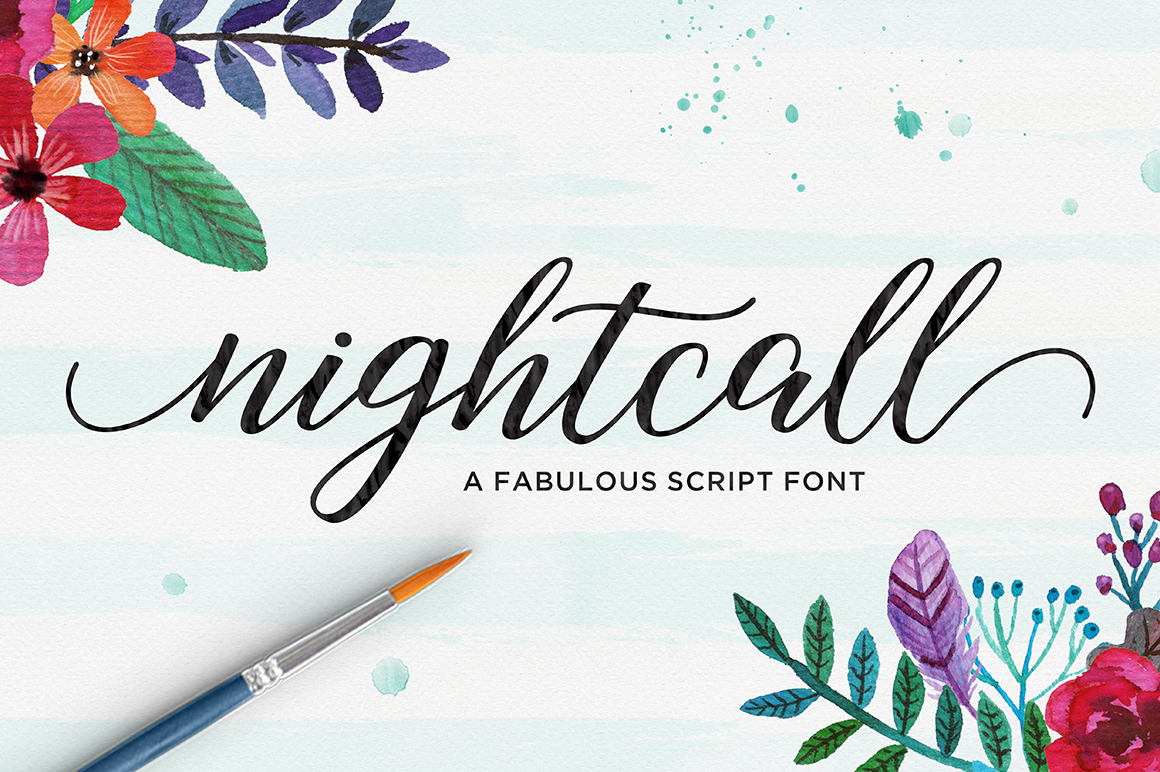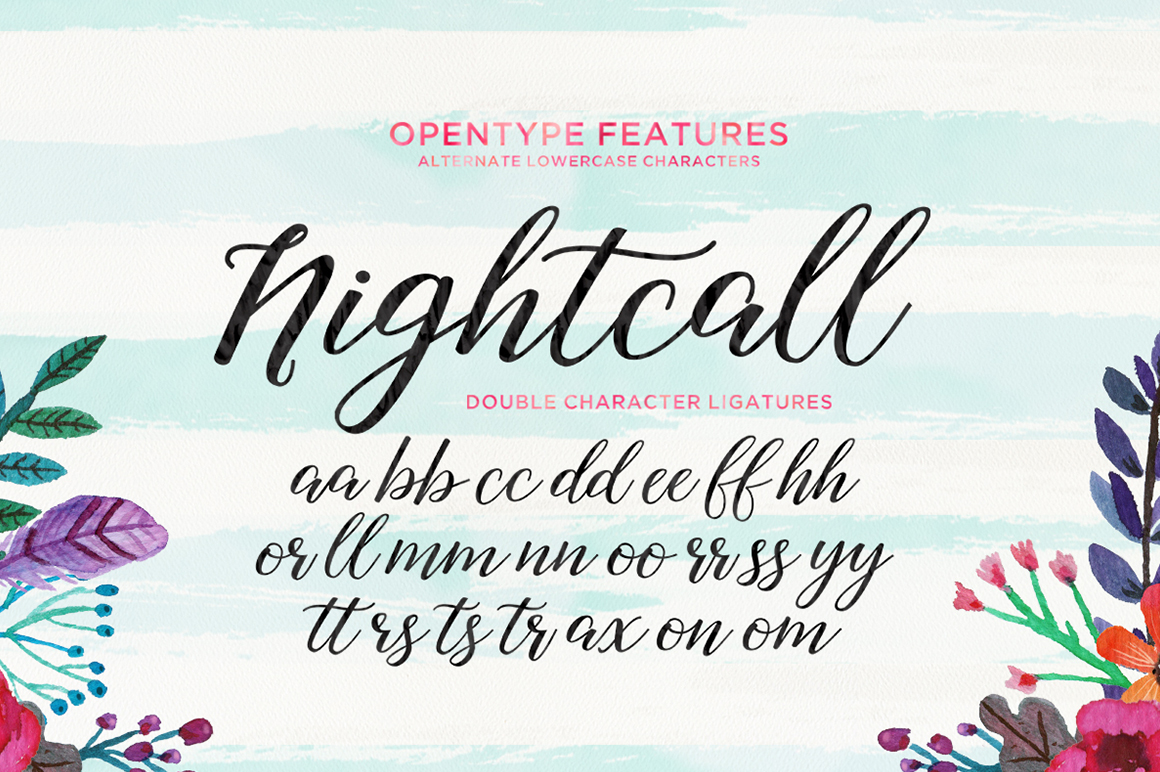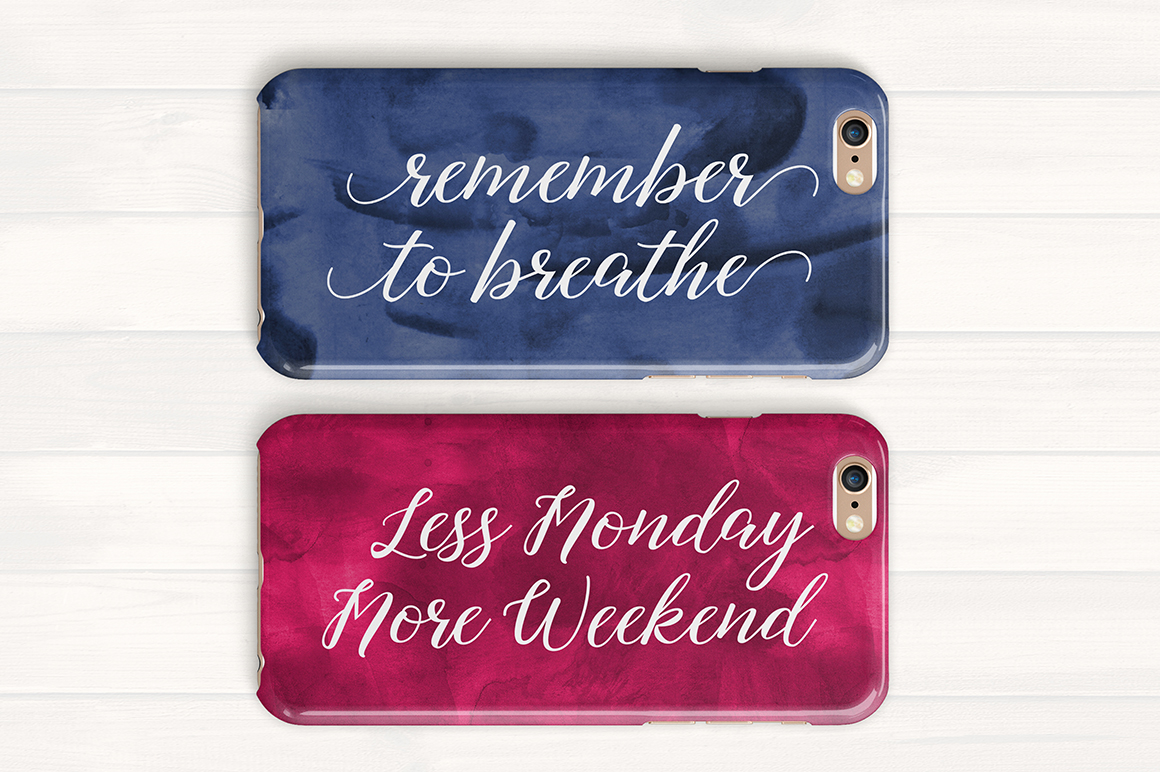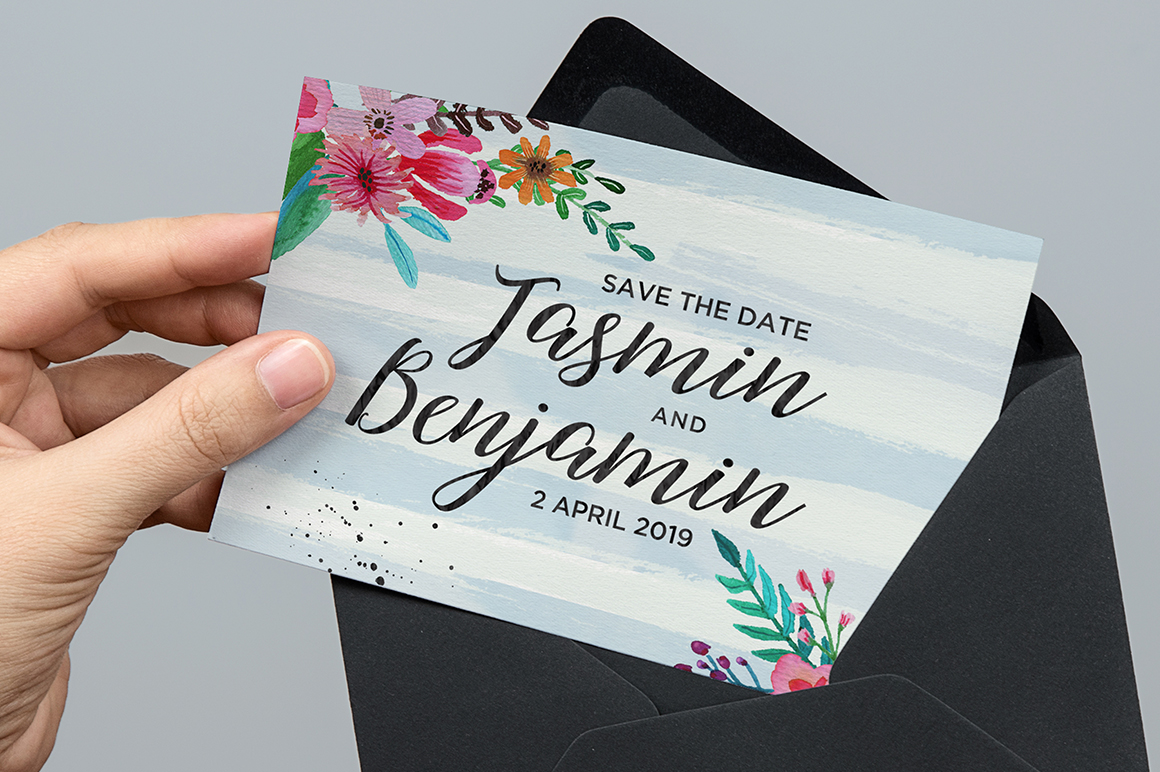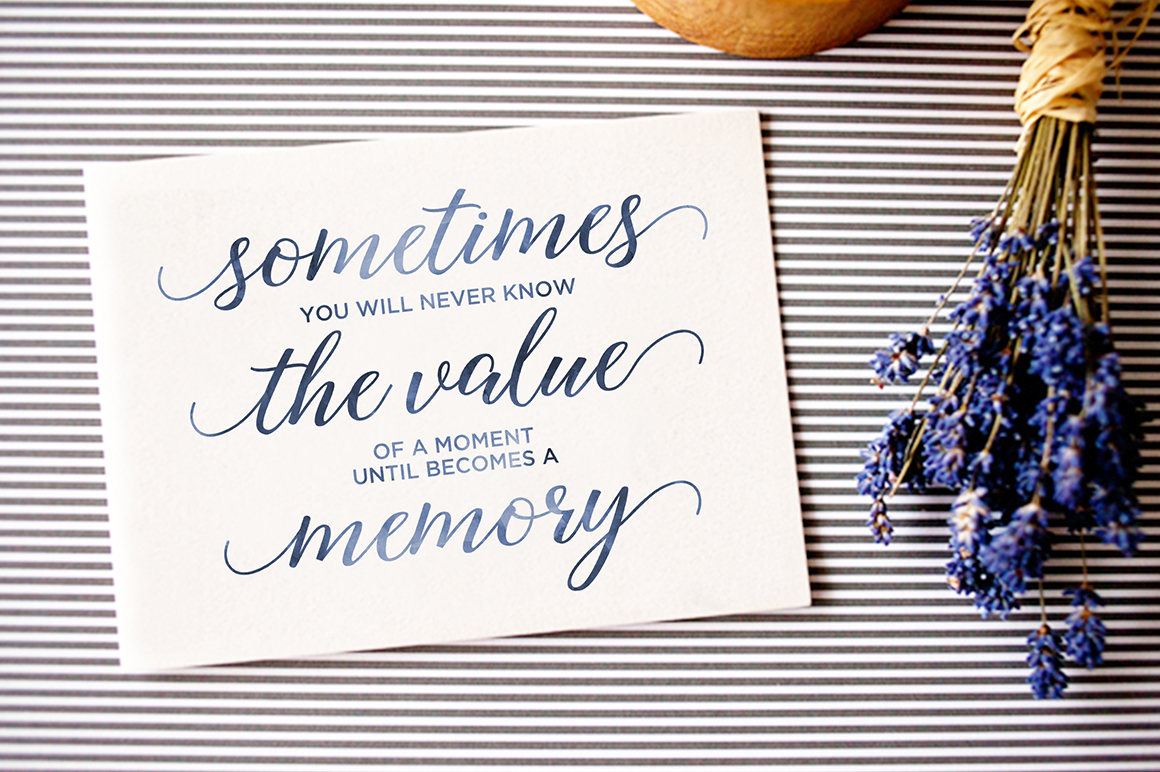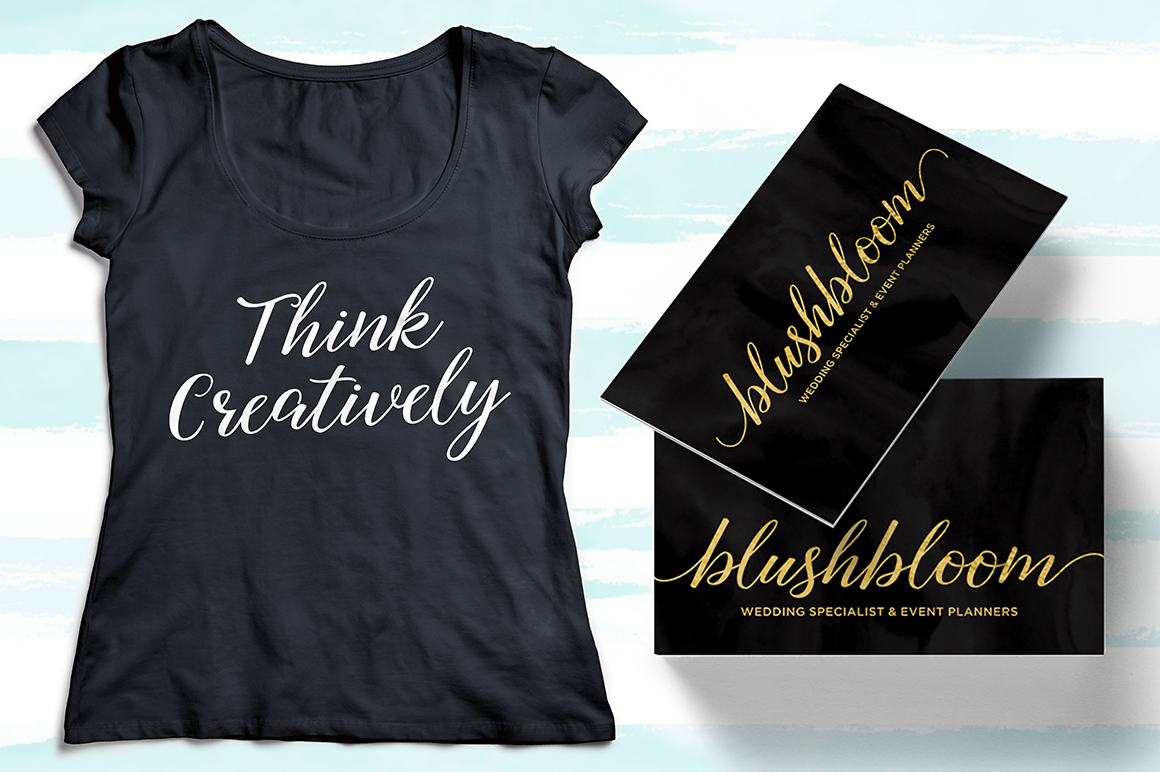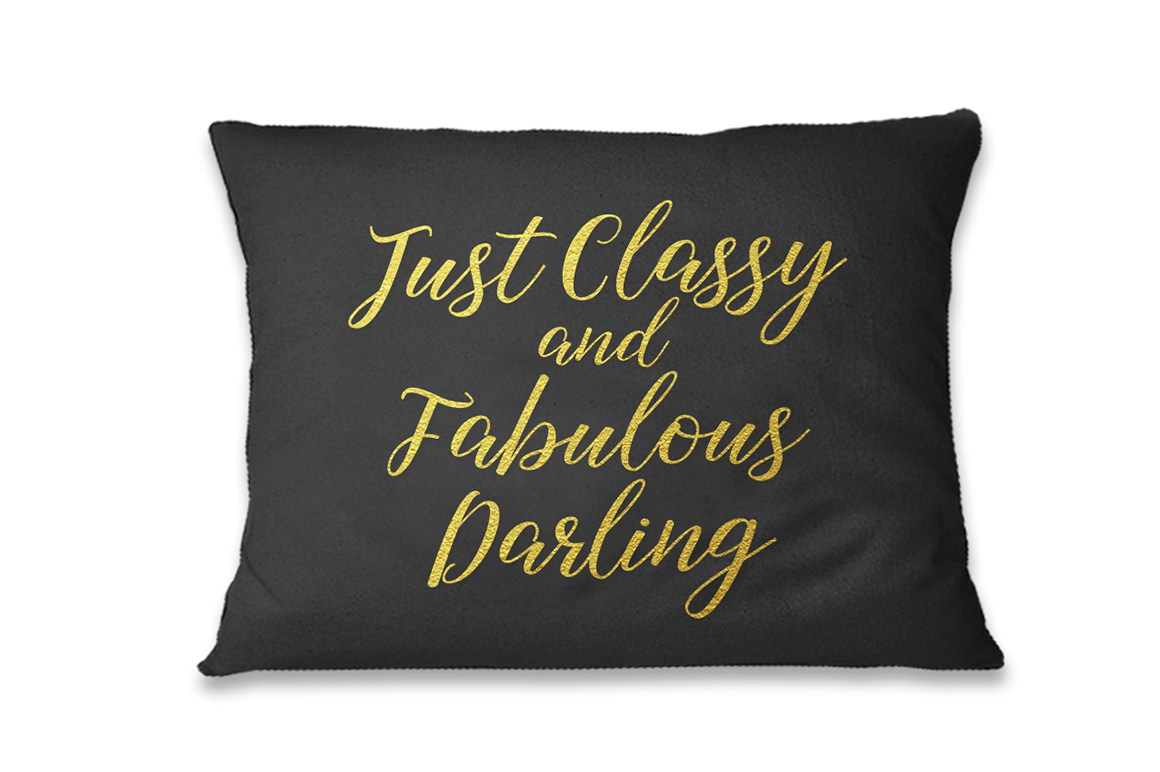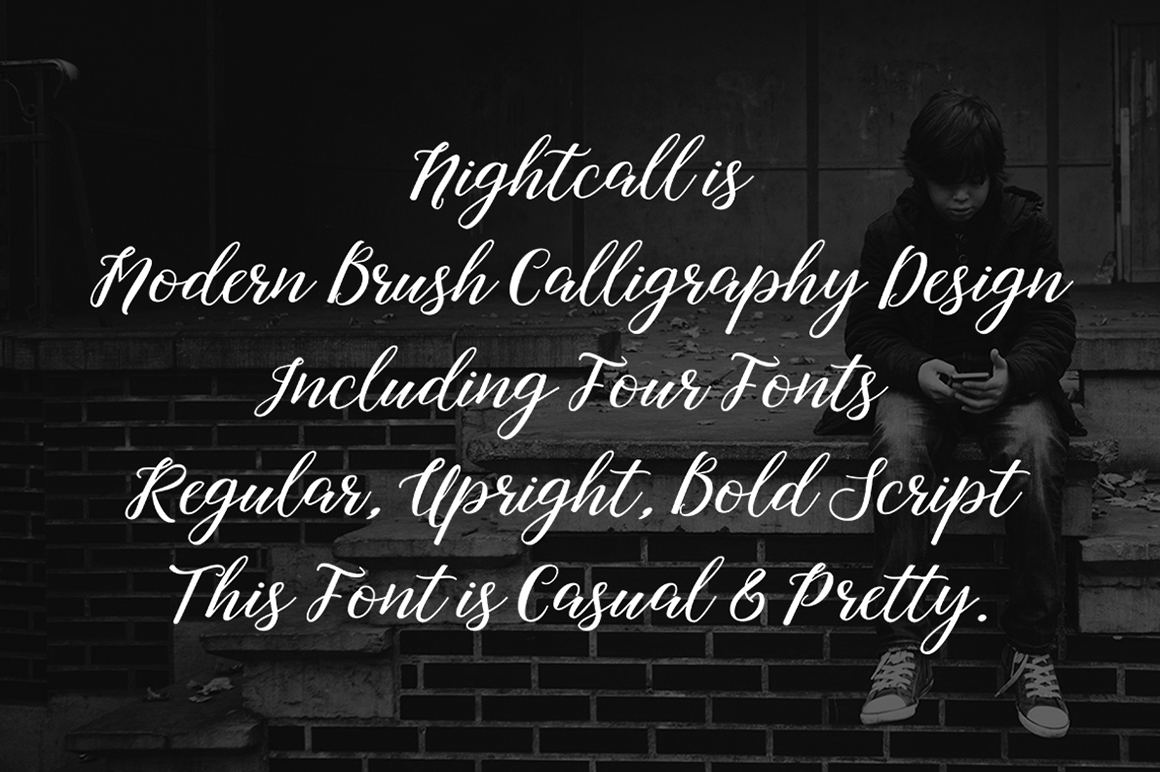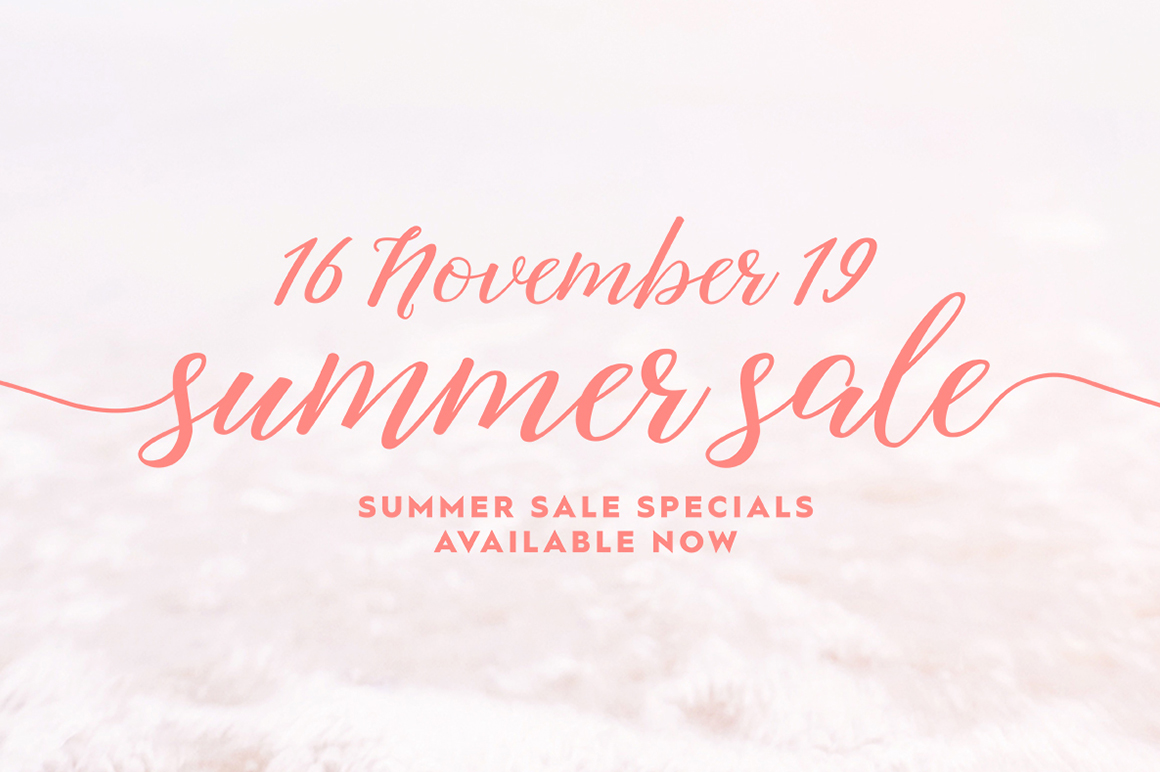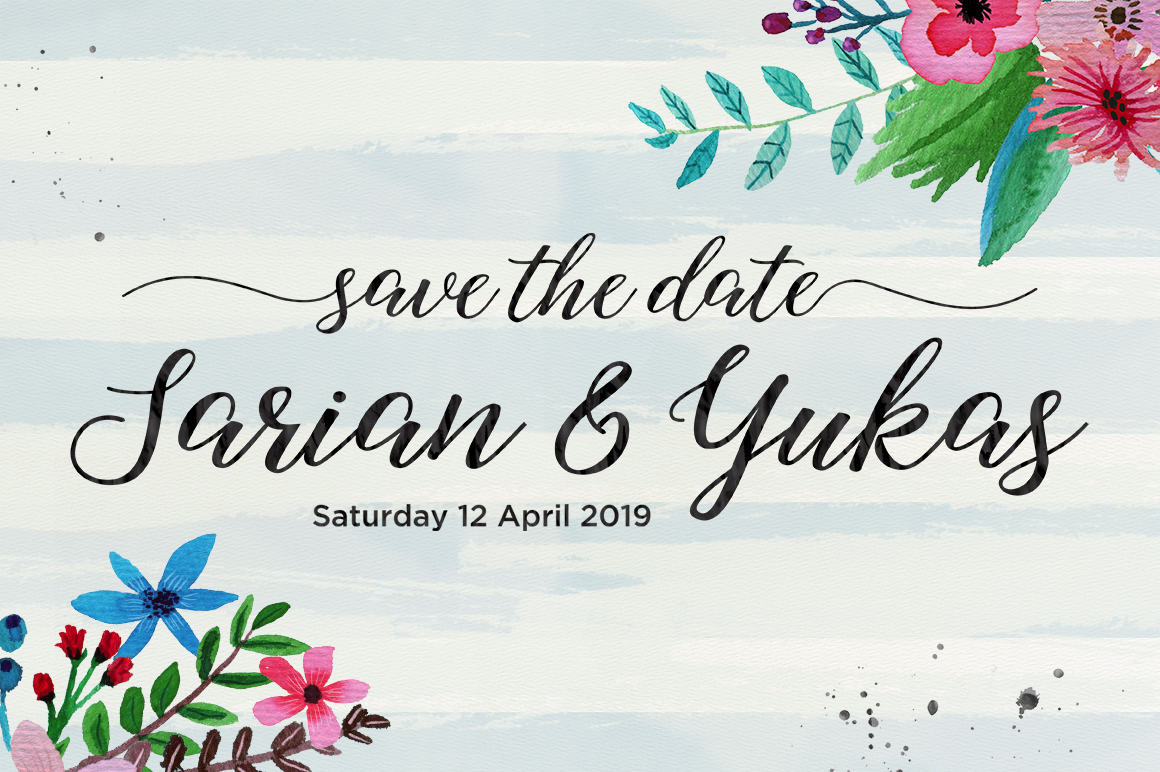
Nightcall Font
About Nightcall Font
Nightcall is a modern calligraphic-style script font that comes in 3 versions: Regular, Upright & Bold.
The flow is very casual and features stunning initial and terminal swashes.